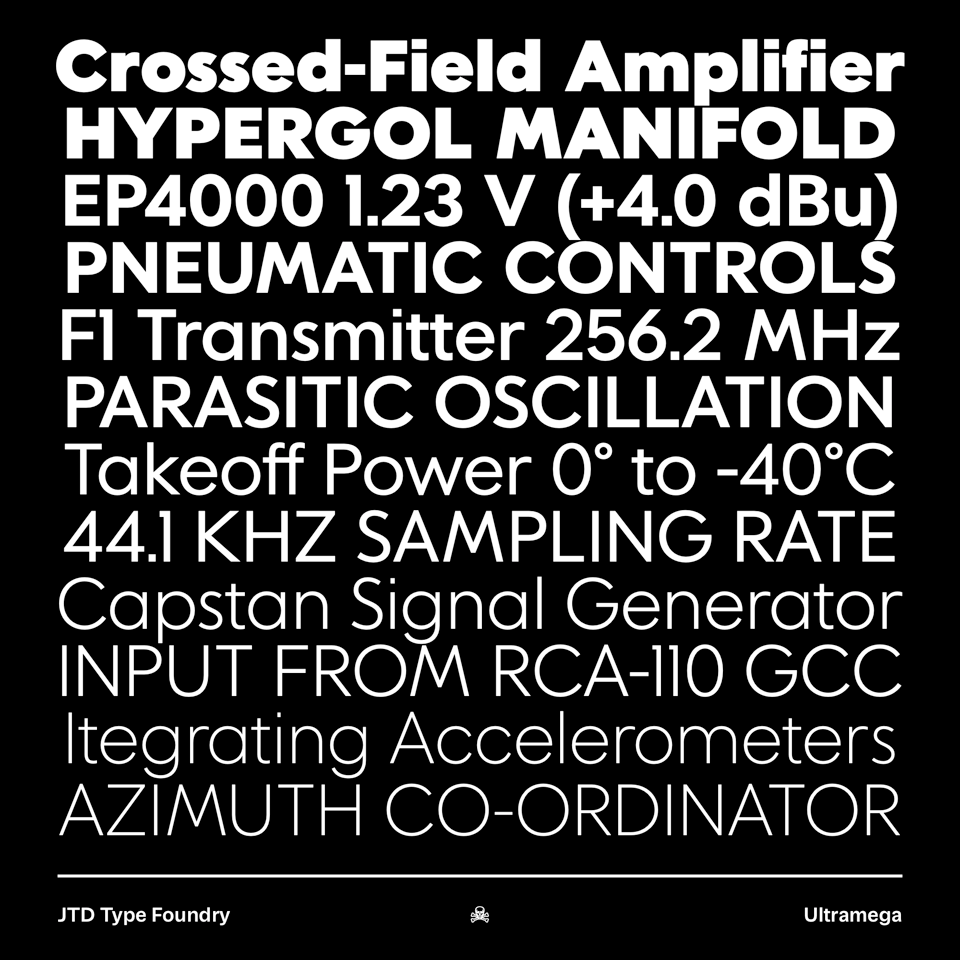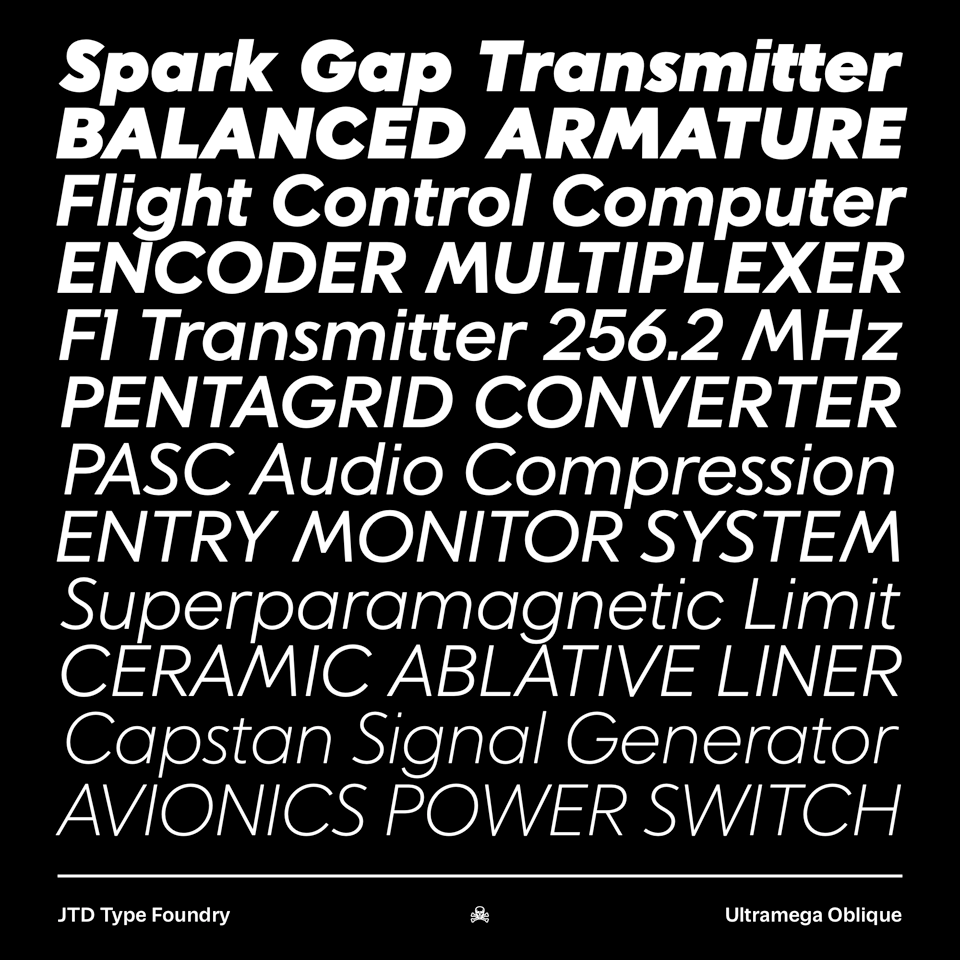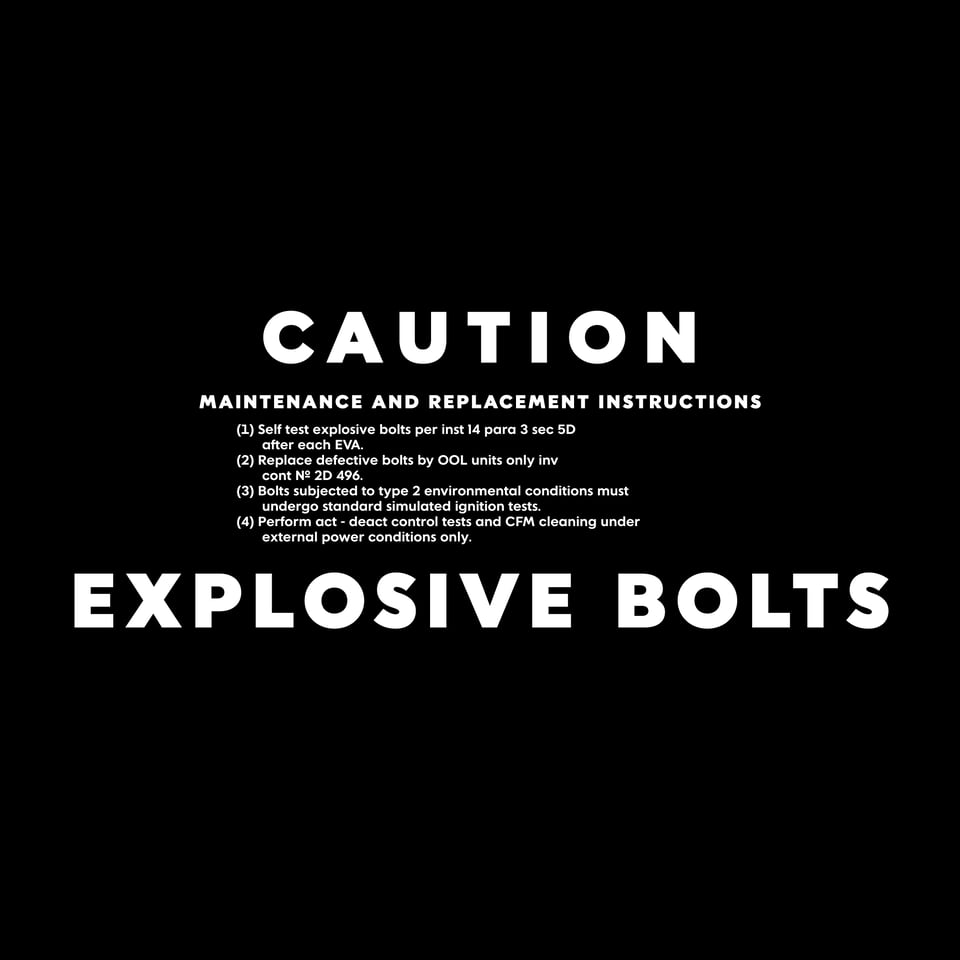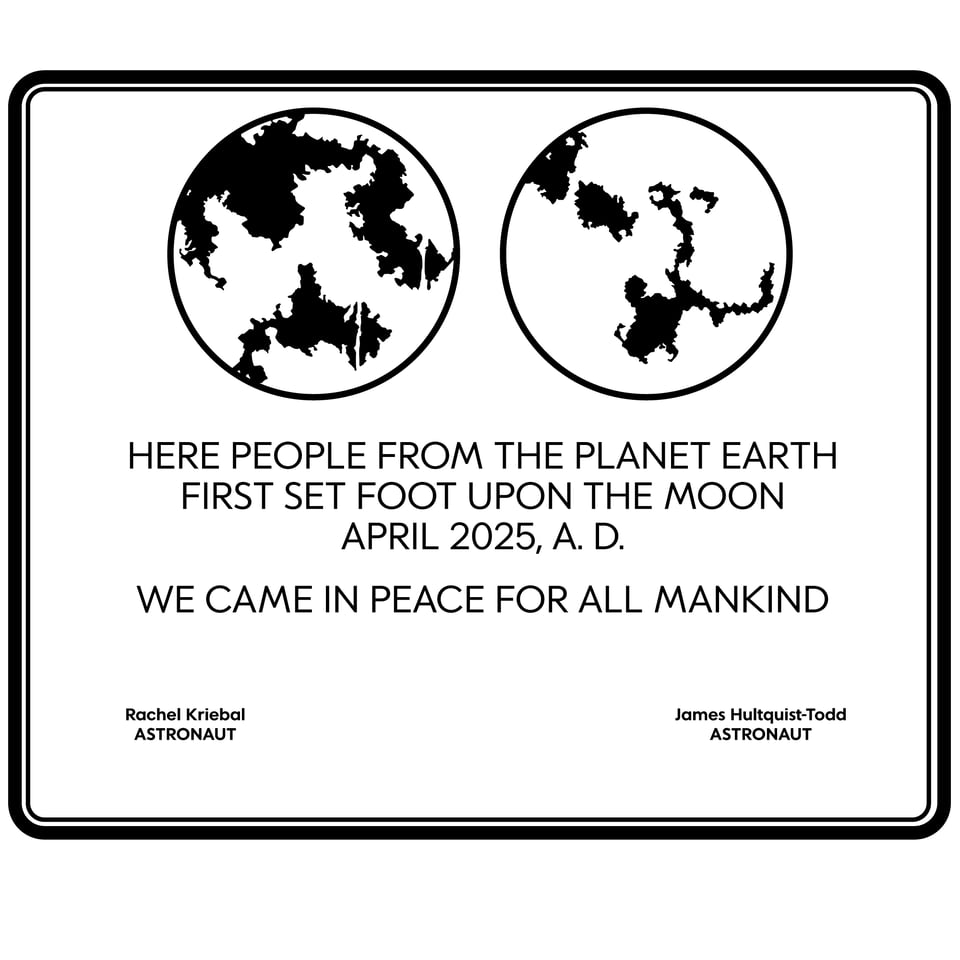
JTD №5: Say hello to Ultramega
Our first release from Rachel Kriebel, Ultramega, is finally finished! Rachel started here in 2019 and Ultramega has been cooking in the background the whole time.
Inspired by a Soviet take on Futura and 1970s sci-fi, Ultramega is a geometric sans serif family in 12 styles. Like its inspiration, it leans a little more grotesk than most geometric sans serifs, letting it work in a larger variety of settings.
Before we wrapped up Ultramega, Rachel sat down for an interview about her inspiration, type design, and more. You can read all of it over on the website.